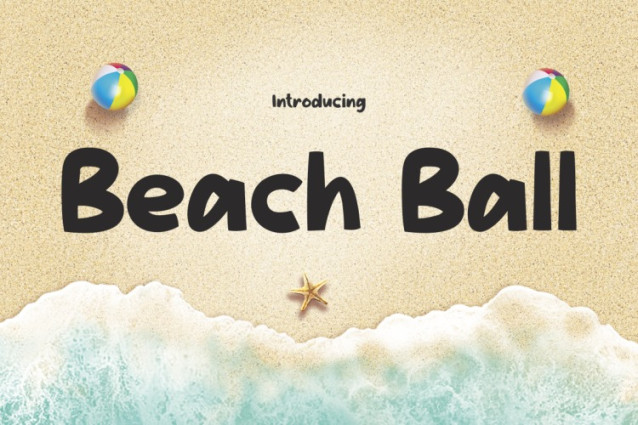
Beach Ball Playful Font
Beach Ball Playful Font is a fun, playful, and friendly typeface that instantly adds a relaxed and joyful vibe to any design. Inspired by the carefree energy of beach vacations, this font features rounded, hand-drawn letterforms. These shapes closely resemble the smooth curves of a beach ball. Moreover, the slightly irregular strokes give it a natural and casual feel, making it perfect for projects that need warmth and personality.
With a bold yet soft appearance, Funny Font Beach Ball stands out without overwhelming the design. Additionally, its clear readability makes it great for headlines, branding, and social media graphics. The font exudes a lively beachside charm, which makes it ideal for summer-themed projects. It also works well for travel-related designs and children’s materials. Whether you’re designing logos, event invitations, or packaging, this font makes your text pop with a fun and energetic touch.
Furthermore, its versatility allows it to be used in both digital and print media. From social media banners to posters, Funny Font Beach Ball remains engaging and inviting. The balanced weight ensures easy reading, even from a distance. As a result, it is suitable for signs, advertisements, and promotional materials. With its relaxed and cheerful personality, this font brings a unique and fun element to any creative project.